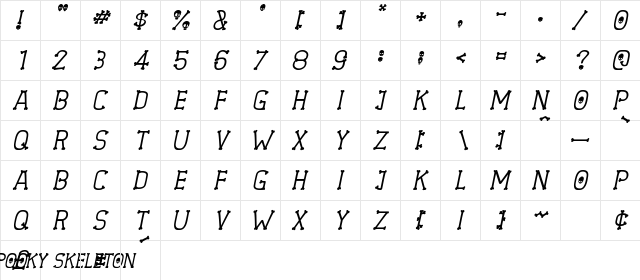
Spooky Skeleton Italic
Design Context for Spooky Skeleton Typeface
Spooky Skeleton is a composed and adaptable typeface that performs quietly and consistently across a wide range of design contexts. The dynamic lean of this cut emphasises speed and emphasis in any layout.
Pro Tip: Try Spooky Skeleton for annotation and caption copy alongside an upright companion — the contrast in angle creates a dynamic but ordered typographic system.